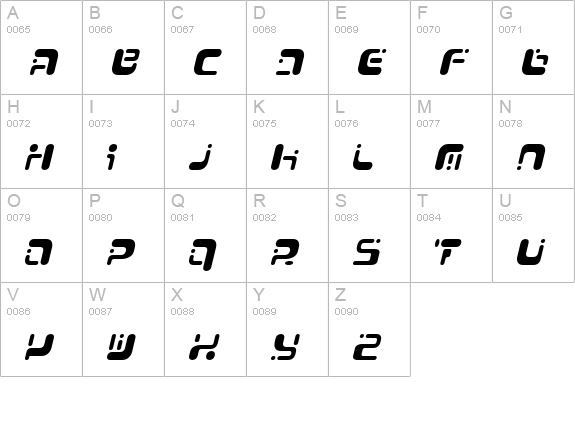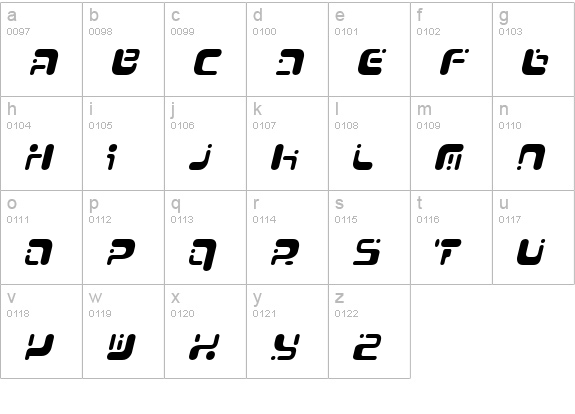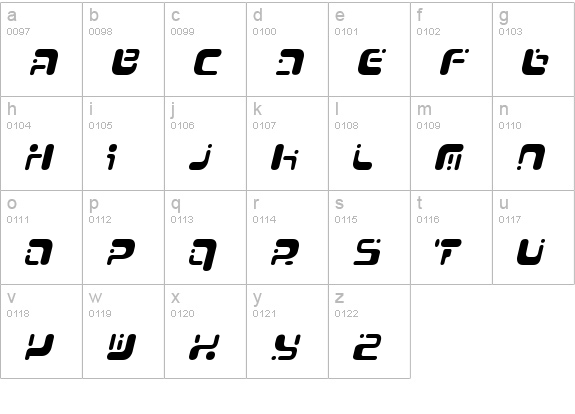
Lastu # 1 Font Details
Lastu #1 is a stunning and versatile font that exudes elegance and sophistication. With its clean lines and contemporary style, this font is perfect for a wide range of design projects, from branding and advertising to packaging and editorial work. The sleek and modern look of Lastu #1 adds a touch of professionalism to any design, making it an ideal choice for both digital and print media. One of the standout features of Lastu #1 is its wide range of weights and styles, allowing designers to effortlessly create unique and eye-catching typography. Whether you're looking for a bold and impactful headline or a subtle and refined body text, Lastu #1 has you covered. What sets Lastu #1 apart is that it is not only a high-quality font, but it is also freely available to download at FontsMarket.com. This means that designers and creatives from all walks of life can enjoy the benefits of this exceptional font without breaking the bank. Its accessibility and affordability make Lastu #1 a must-have in any designer's toolkit. With its exceptional design and free availability, Lastu #1 is a font that stands out from the crowd. Its versatility, elegance, and professional appeal make it a top choice for designers who are looking to create stunning and impactful designs. Download Lastu #1 today from FontsMarket.com and elevate your design projects to new heights.